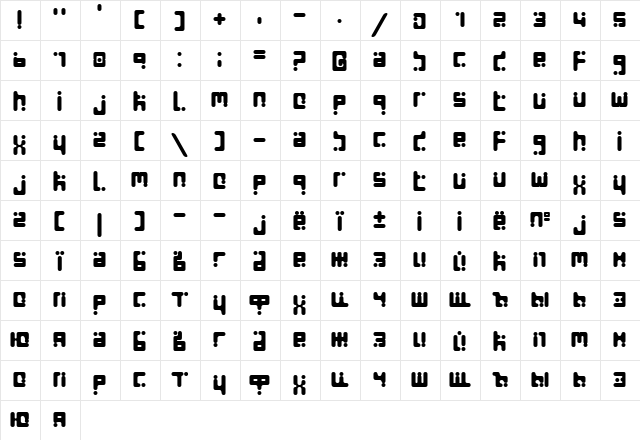
Seeds Cyr Medium
| Designer | Matt Perkins, Roman Volkov, Dubina Nikolay |
Design Context for Seeds Cyr Typeface
Seeds Cyr is a composed and adaptable typeface that performs quietly and consistently across a wide range of design contexts.